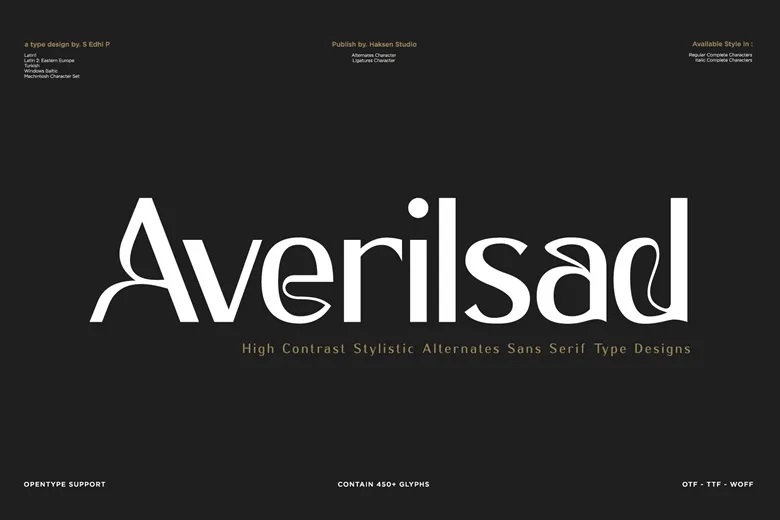
Averilsad Font
Averilsad is a good-looking and adaptable sans serif typeface that can help you brand with elegance and simplicity. Thanks to its clean lines and true proportions, Averilsad fits perfectly in logos, for packaging, in editorial work, online and more.
Because this typeface includes a great number of stylistic alternates and advanced ligatures, you can make any part of your design as unique as you like. You can create a luxury or minimalist look or a striking piece and Averilsad will adjust to fit your needs.
Averilsad Sans Serif Font